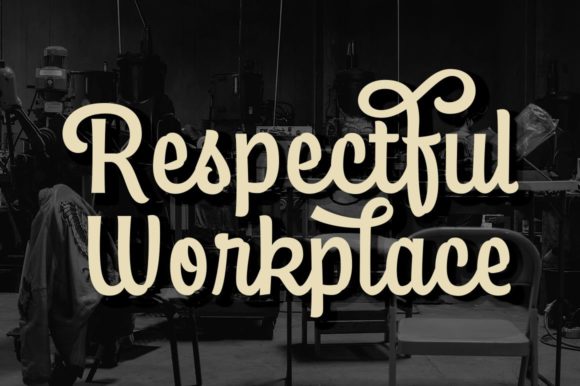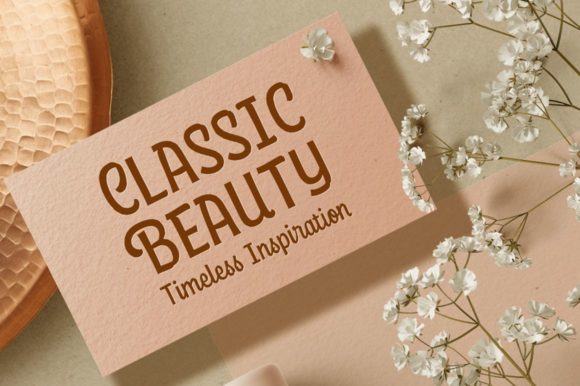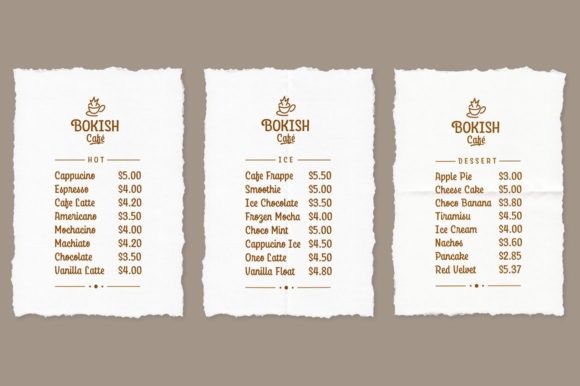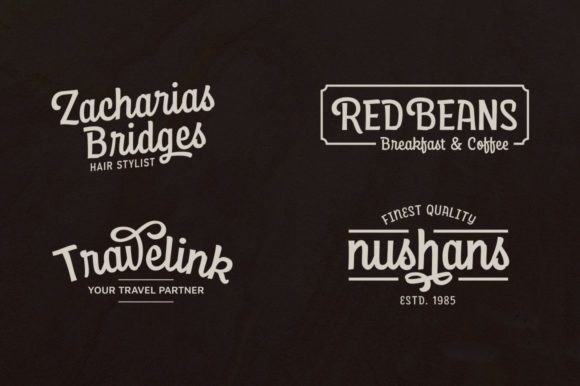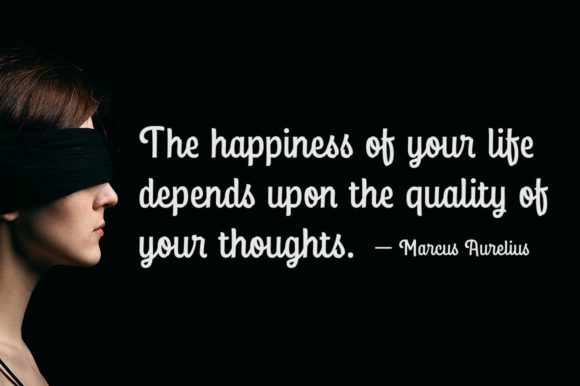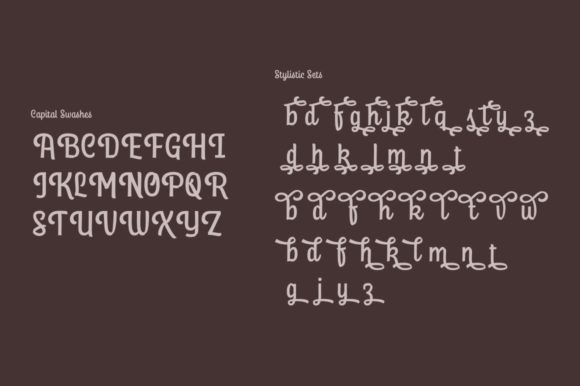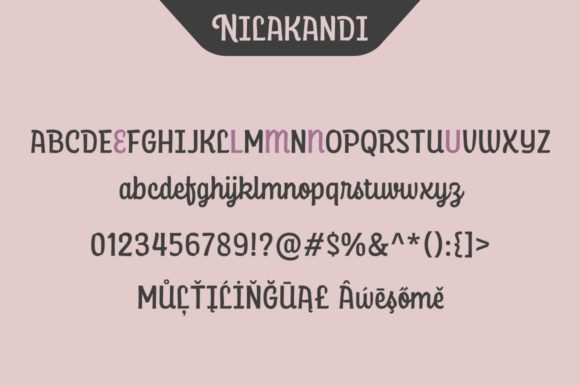
Nilakandi Font
About Nilakandi Font
Introducing “Nilakandi,” an exquisite handwritten font that is destined to become a true favorite in the world of design. With its captivating blend of classy calligraphic influences and a fresh contemporary style, “Nilakandi” offers a unique and sophisticated charm that will elevate your projects to new heights. Let’s explore the features that make “Nilakandi” a font worth falling in love with:
Classy Calligraphic Influences: “Nilakandi” draws inspiration from the art of calligraphy, infusing your text with a touch of timeless elegance and sophistication. The fluid and graceful strokes emulate the beauty of handcrafted script, lending a sense of artistry to your designs.
Contemporary Freshness: Despite its classical roots, “Nilakandi” seamlessly blends in a modern twist. This fresh and contemporary approach keeps the font relevant and ensures that it resonates with current design trends.
Exquisite Design: Every aspect of “Nilakandi” is meticulously crafted to perfection. From the carefully balanced characters to the intricate details, this font exudes a sense of refinement that adds a premium feel to your projects.
Versatility: “Nilakandi” is incredibly versatile, making it suitable for a wide range of design applications. It effortlessly complements various projects, including wedding invitations, thank you cards, quotes, greeting cards, logos, business cards, and more.
Distinctive Style: The unique charm of “Nilakandi” sets it apart from other fonts. Its individuality makes your text stand out and leaves a lasting impression on your audience.
High-Quality Typography: The smooth lines and flawless curves of “Nilakandi” create a visual treat that enhances the overall appearance of your designs. It’s a font that is crafted with precision and attention to detail.
Appealing to the Heart: There’s an emotional connection that “Nilakandi” establishes with its readers. Its warm and inviting nature elicits a sense of comfort and familiarity, making it perfect for designs that require a personal touch.
Professional and Polished: “Nilakandi” exudes professionalism and sophistication, making it an excellent choice for projects that demand a refined and polished look.
Embrace the elegance and sophistication of “Nilakandi” and witness how it transforms your projects into works of art. This exquisite handwritten font brings a perfect blend of timeless charm and contemporary appeal, creating a captivating experience for your audience. Allow “Nilakandi” to add its artistic touch to your designs, taking them to the highest levels of creativity and admiration.